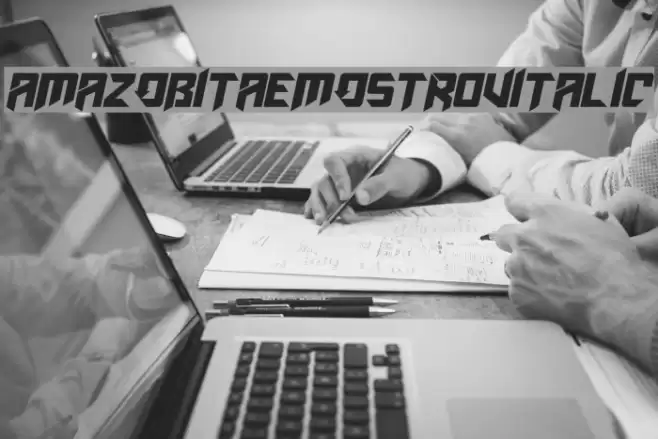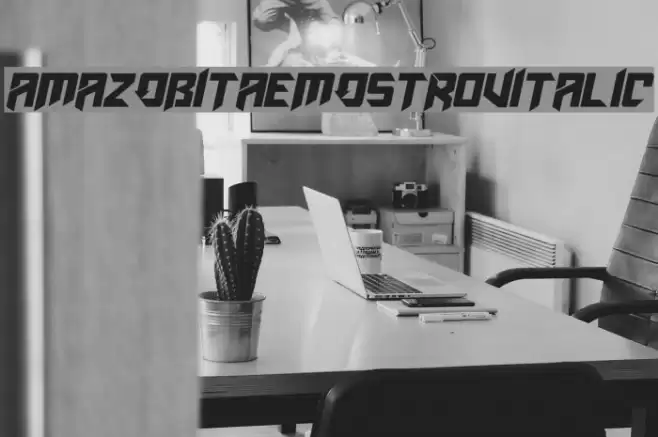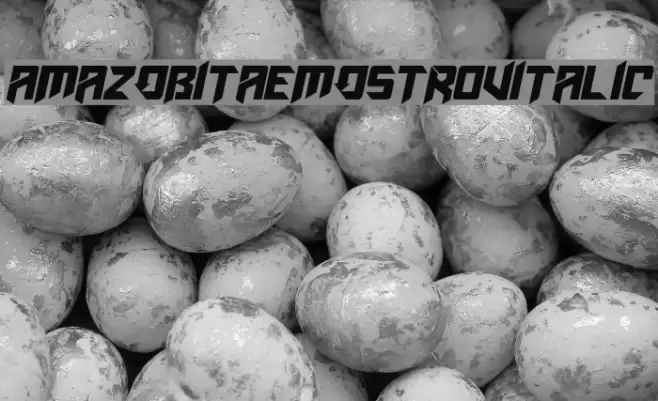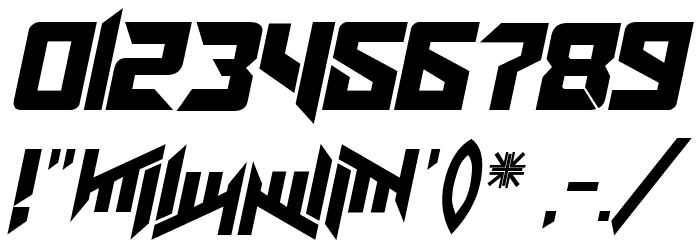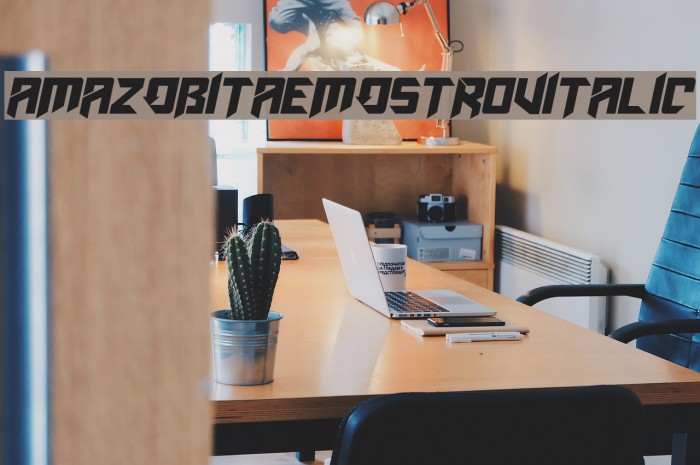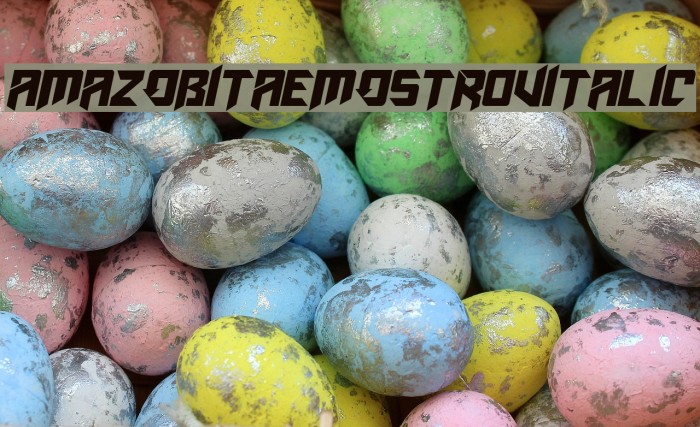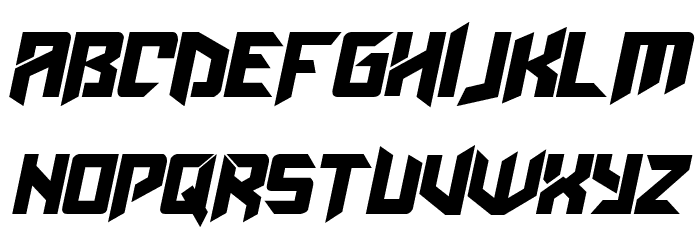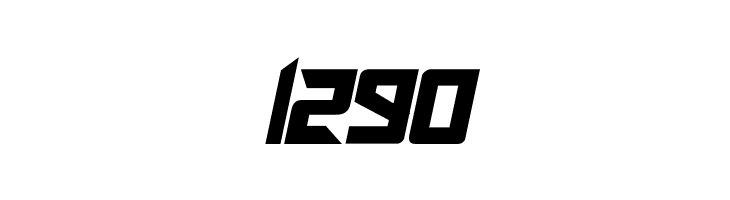
AmazObitaemOstrovItalic Font
AmazObitaemOstrovItalic Description
This font features a bold and dynamic design with sharp, angular lines and a distinct italic slant. The characters are heavily stylized, giving an impression of speed and modernity. The uppercase and lowercase letters maintain a consistent geometric structure, while the numbers and special characters follow the same angular theme. The overall appearance is aggressive and futuristic, making it suitable for projects that require a strong visual impact.
A bold, angular, and italicized font with a futuristic style from Uncategorized fonts.
- Proposed Projects: Ideal for sports branding, video game titles, movie posters, and any project needing a dynamic and modern aesthetic.
- Overall Style: Futuristic